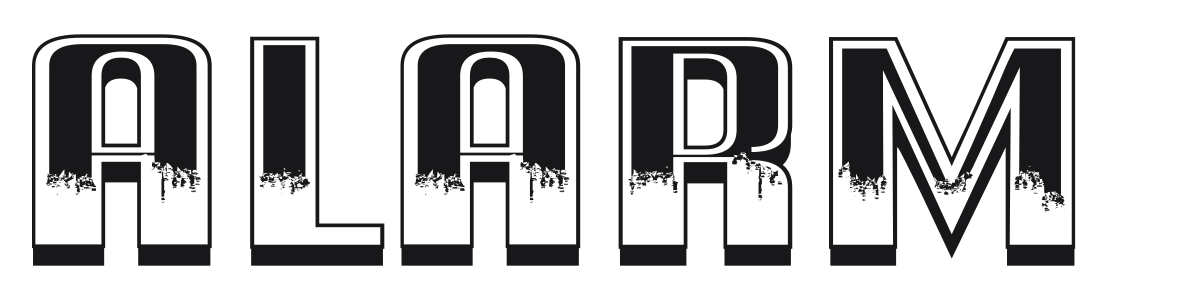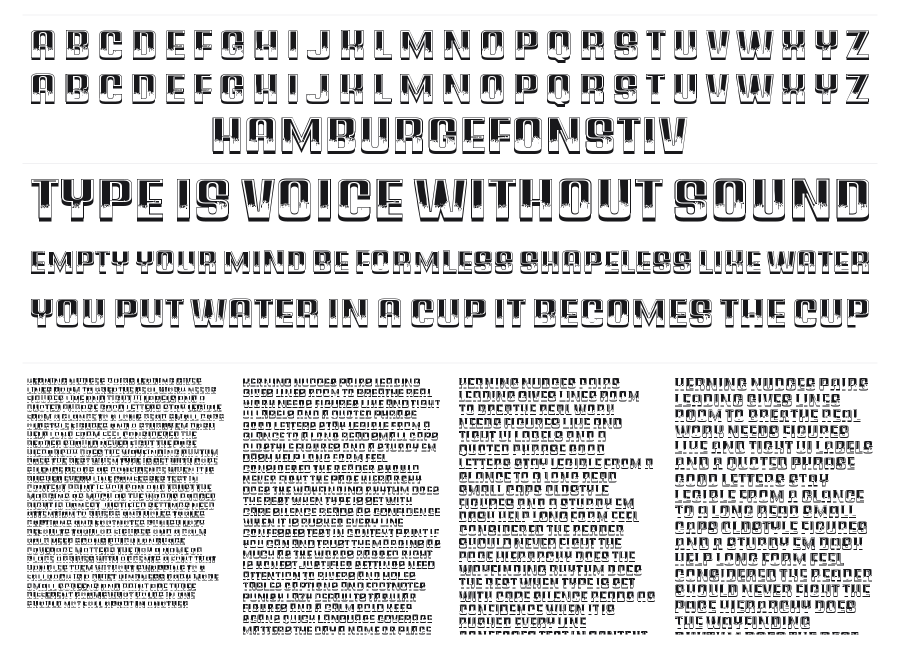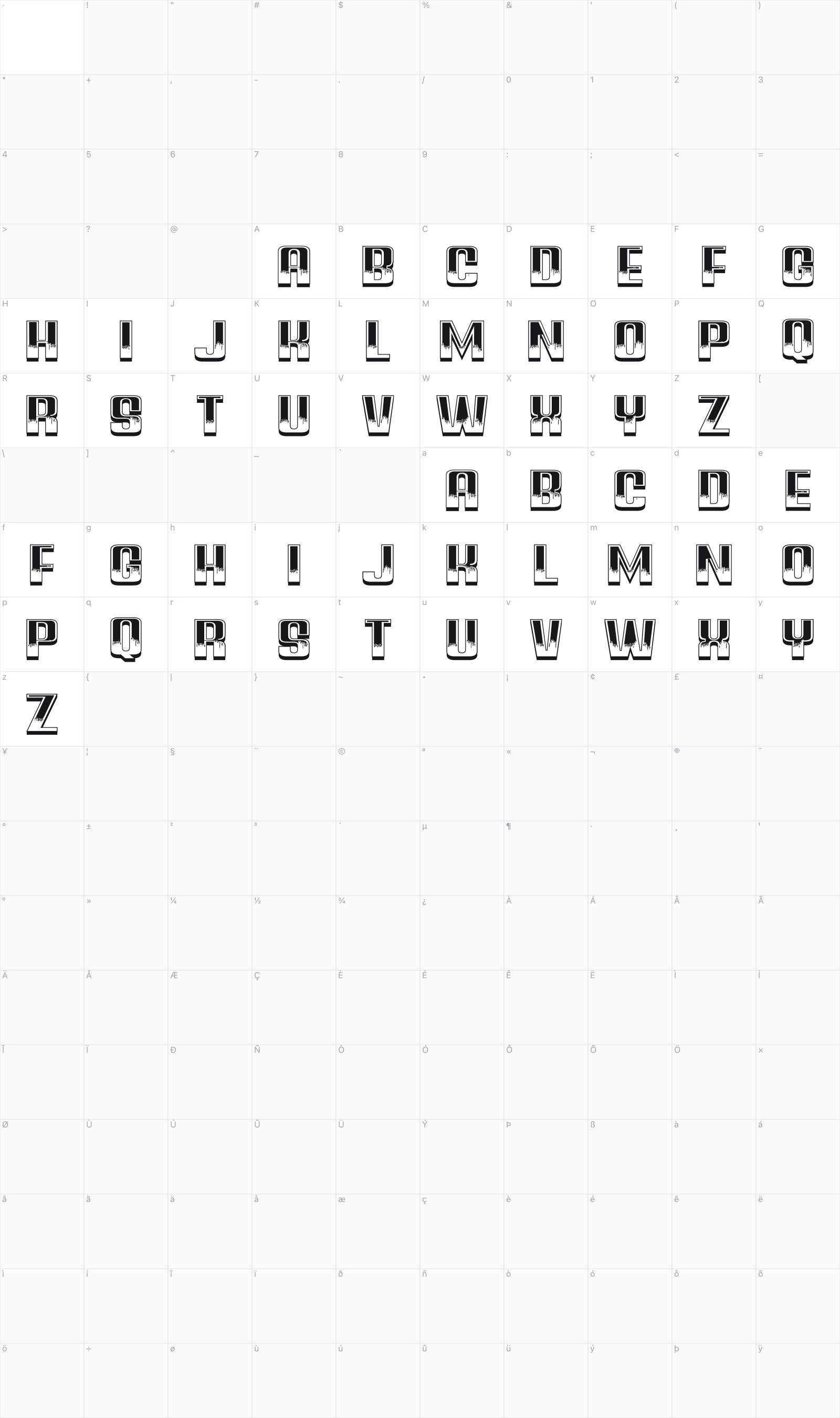
Alarm
Alarm is a condensed bold display font with a rugged military edge. Each character layers an inline detail with a heavy distressed texture, evoking worn stencils or stamped metal under stress. It hits hard at headline and poster sizes and carries a strong action-film or emergency-alert energy.